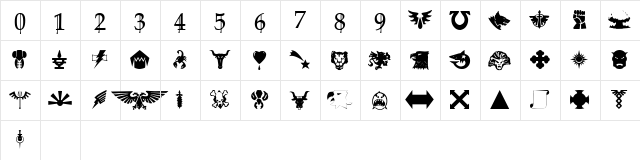
Marines Regular
Design Context for Marines Typeface
Marines is a composed and adaptable typeface that performs quietly and consistently across a wide range of design contexts.